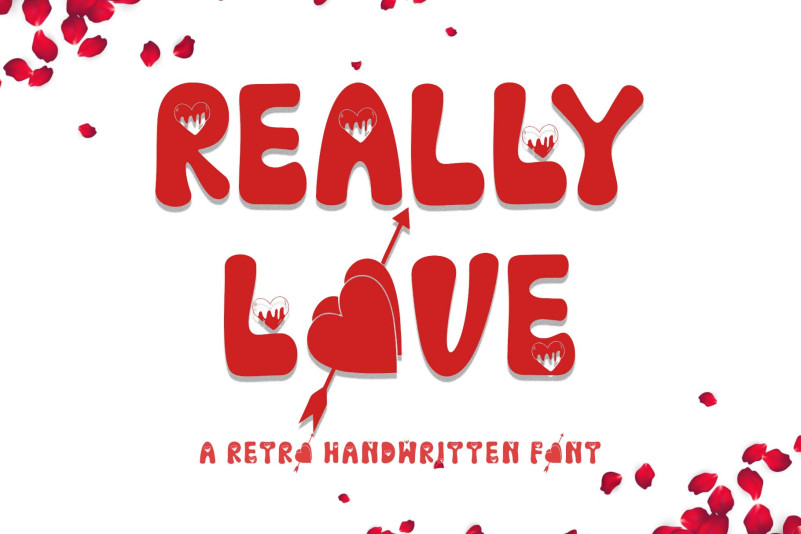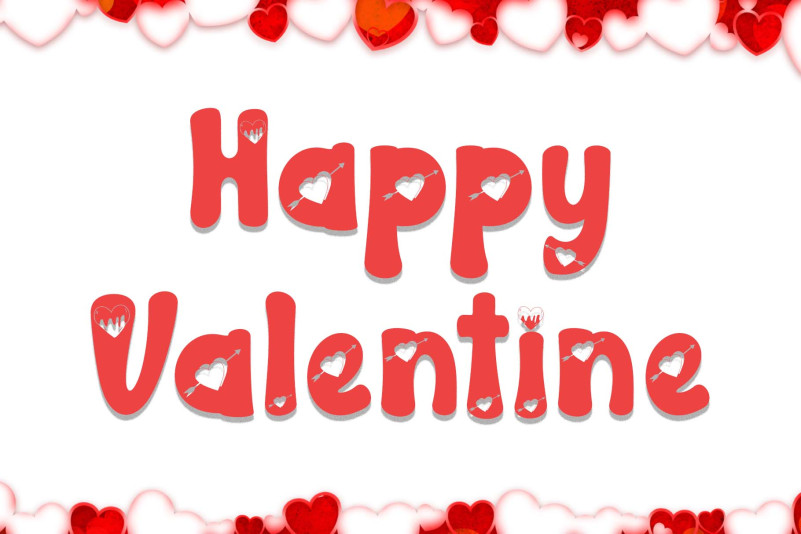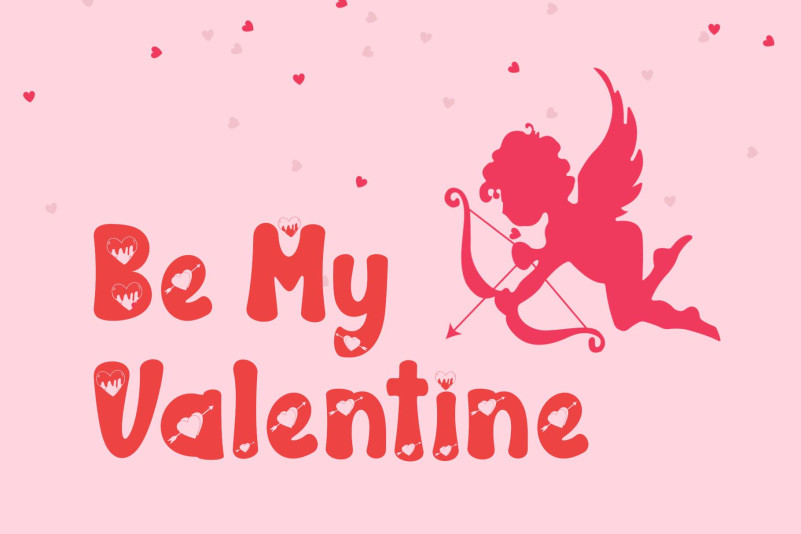
Really Love Font
Really Love Display Font is a very unique and beautiful retro font. Whether you use it for Valentine’s Day moments, weddings, engagements, photography, and others design ideas that require a lovely touch, this font will be an excellent choice. This font is PUA encoded which means you can access all glyphs and swashes effortlessly!